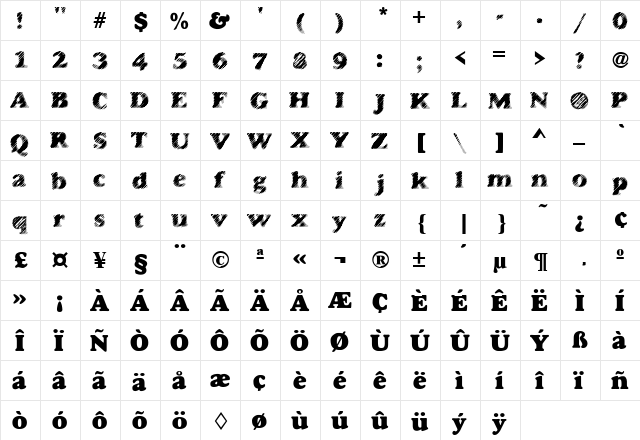
AntiGlare Regular
Design Context for AntiGlare Typeface
AntiGlare takes a measured approach to typography — its balanced proportions and neutral character make it a reliable workhorse for both digital and print work.